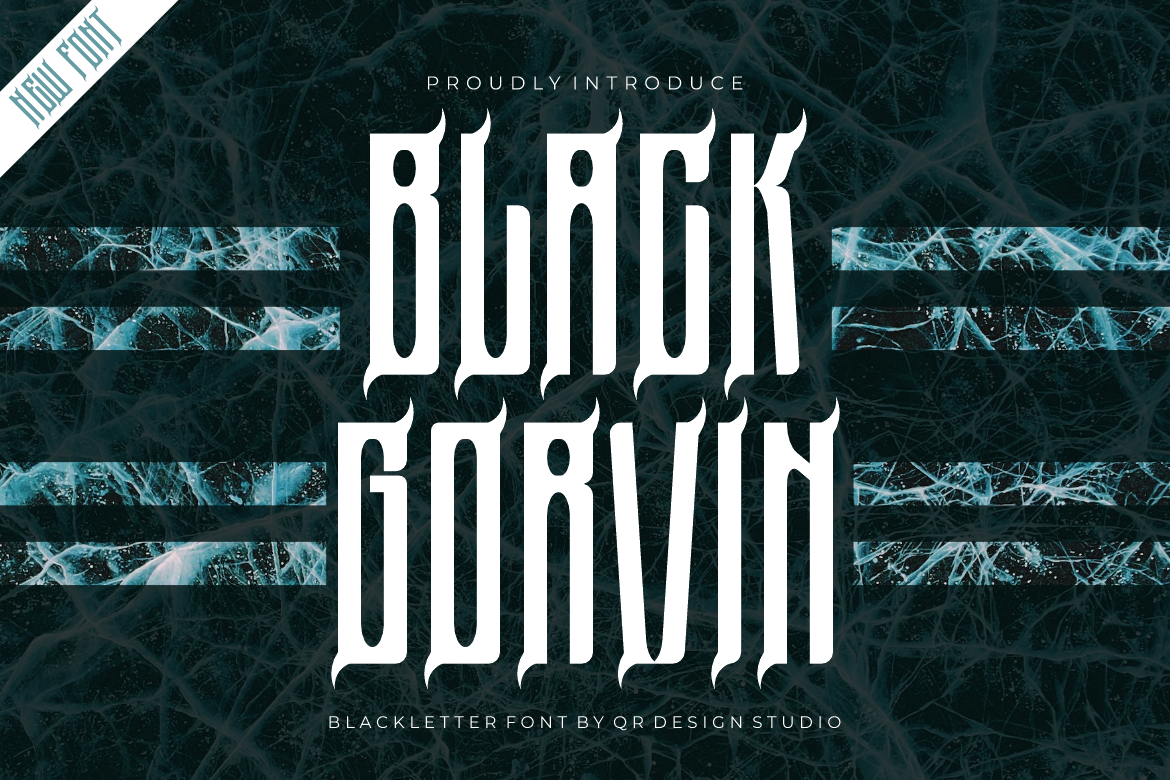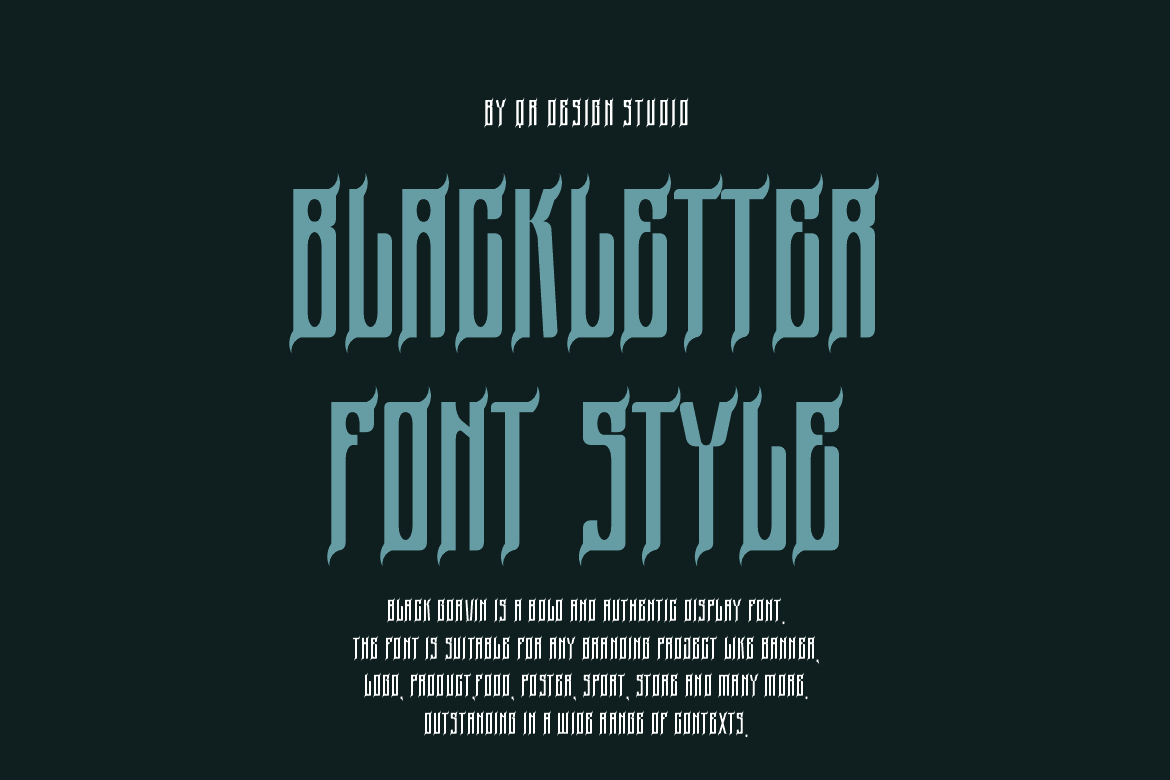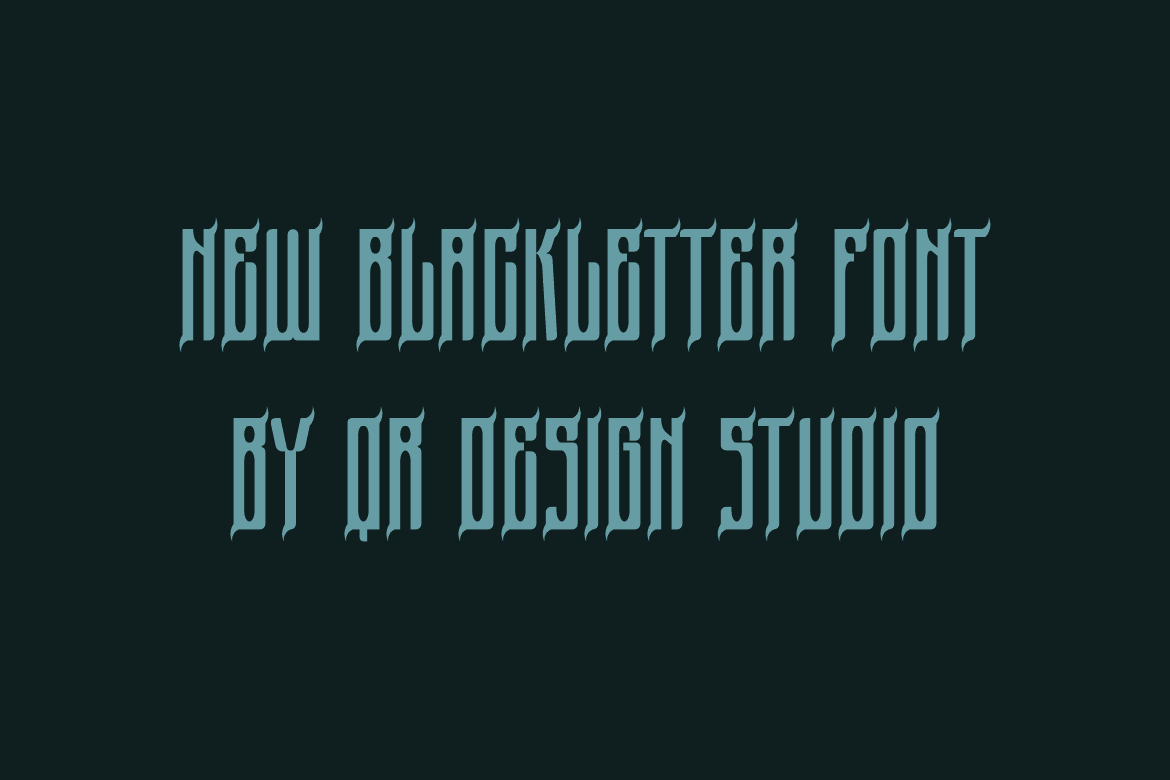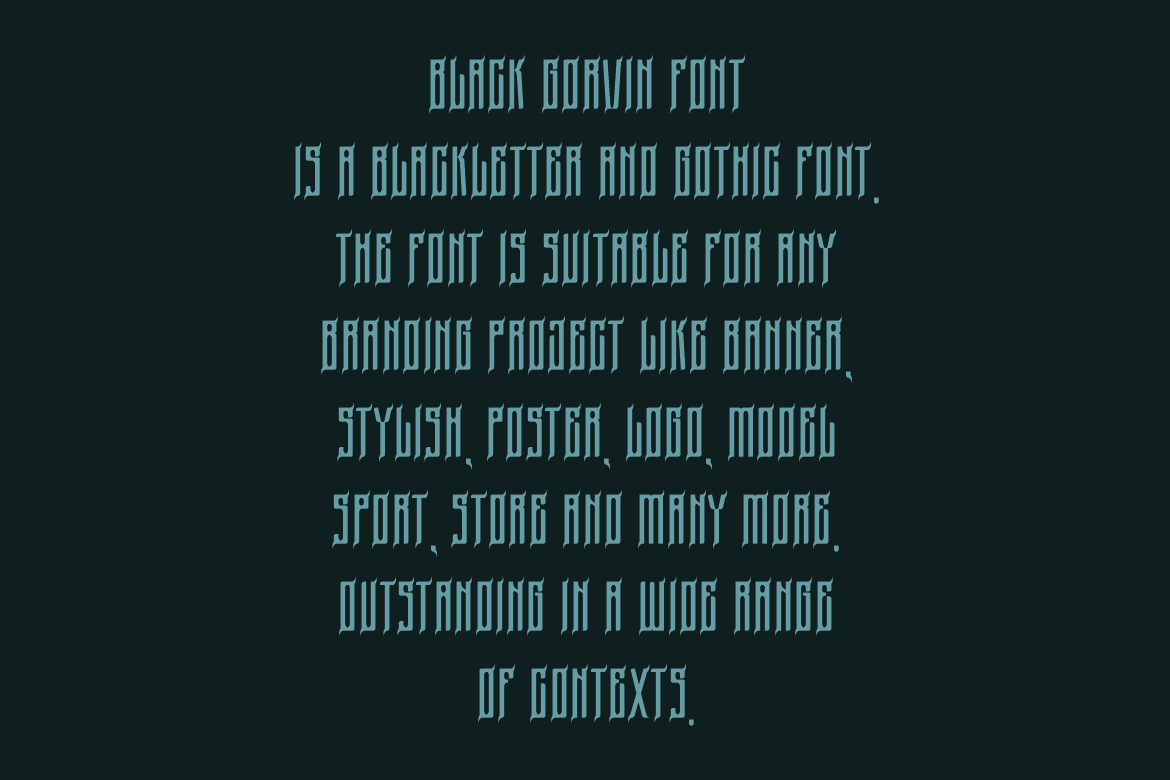
About Black Gorvin Font
Introducing “Black Gorvin” – a striking blackletter font that commands attention with its bold and Gothic-inspired design. With sharp, angular edges and a timeless aesthetic, Black Gorvin adds a touch of medieval flair to your projects. Perfect for creating a sense of authority in branding, invitations, or any design where a touch of old-world charm is desired. Elevate your typography with the distinguished and powerful presence of Black Gorvin.